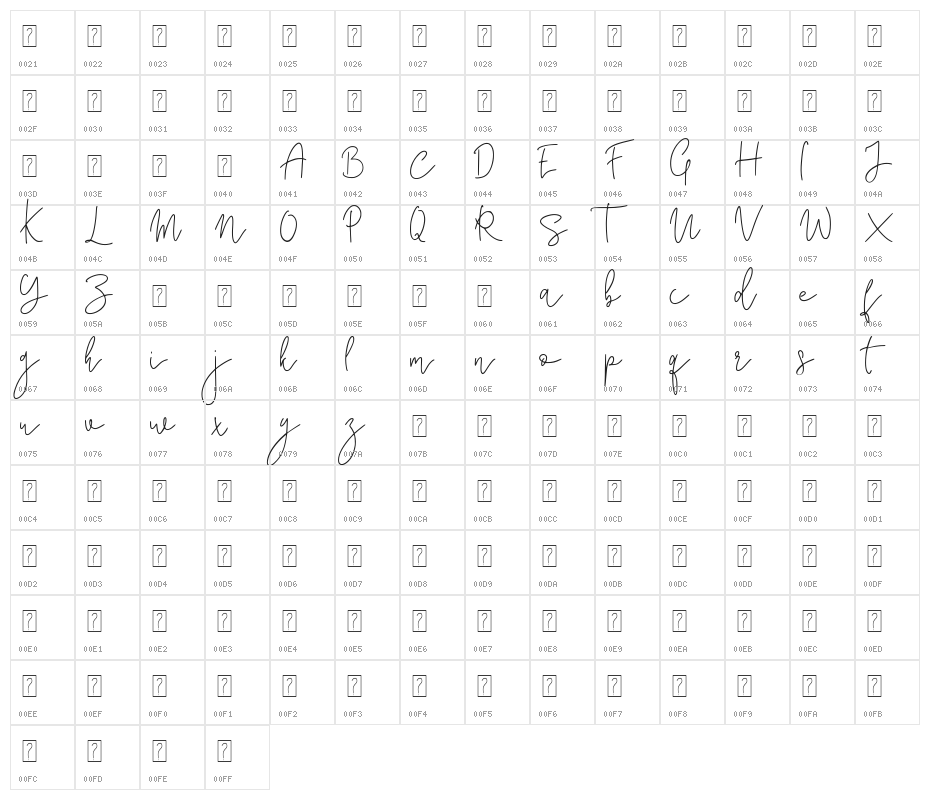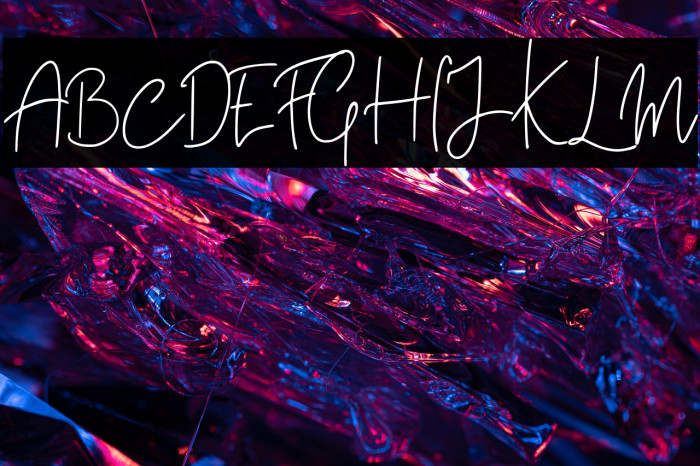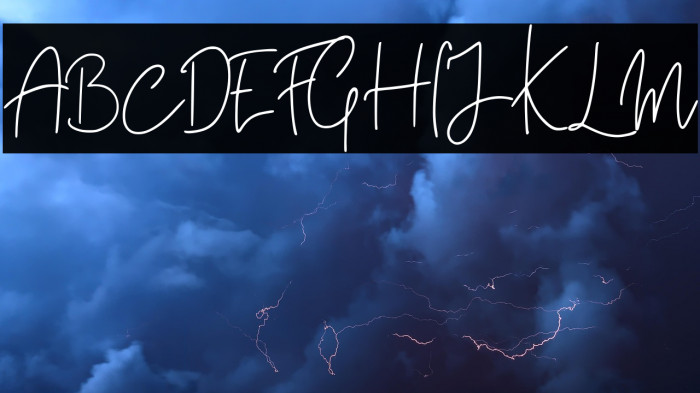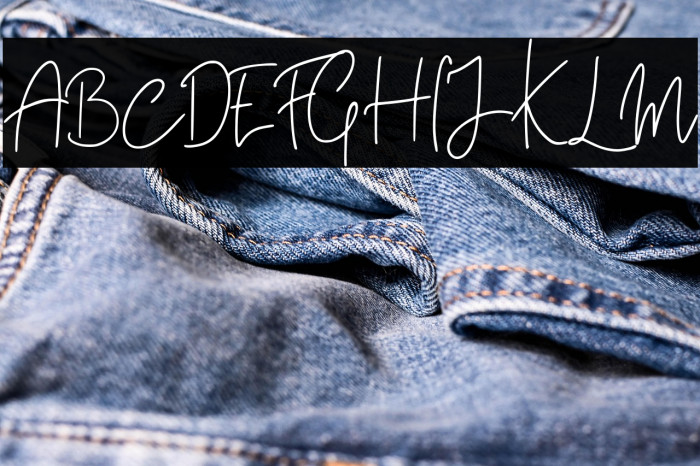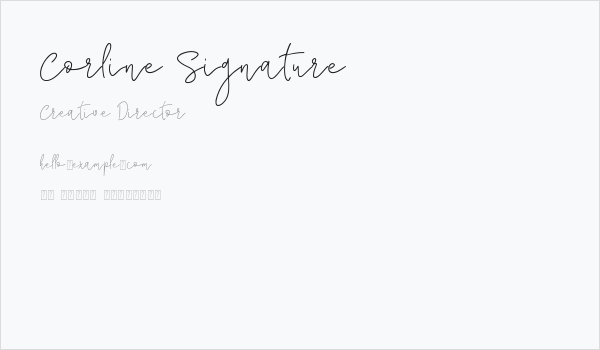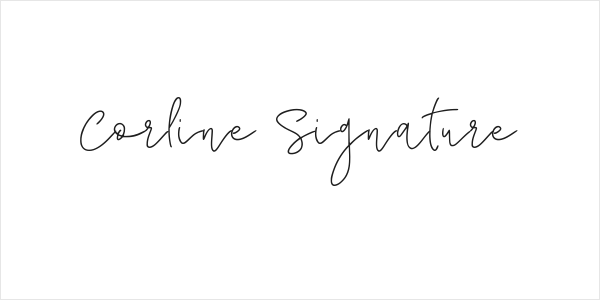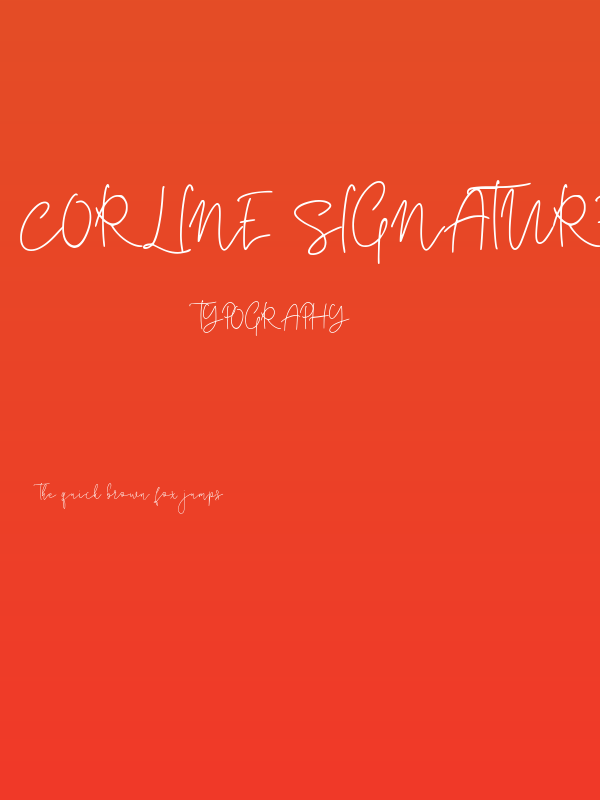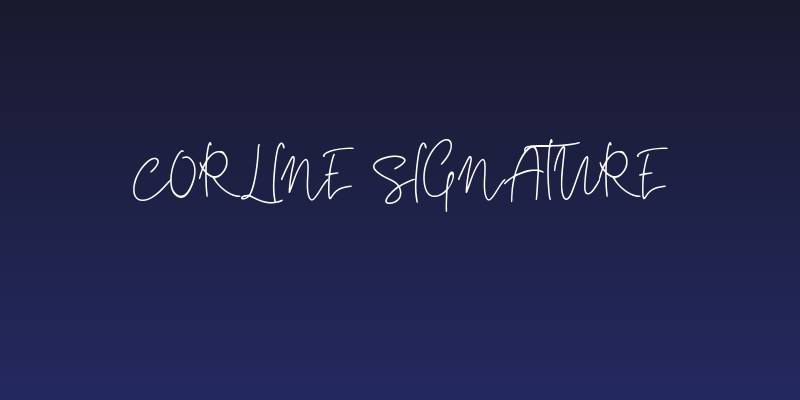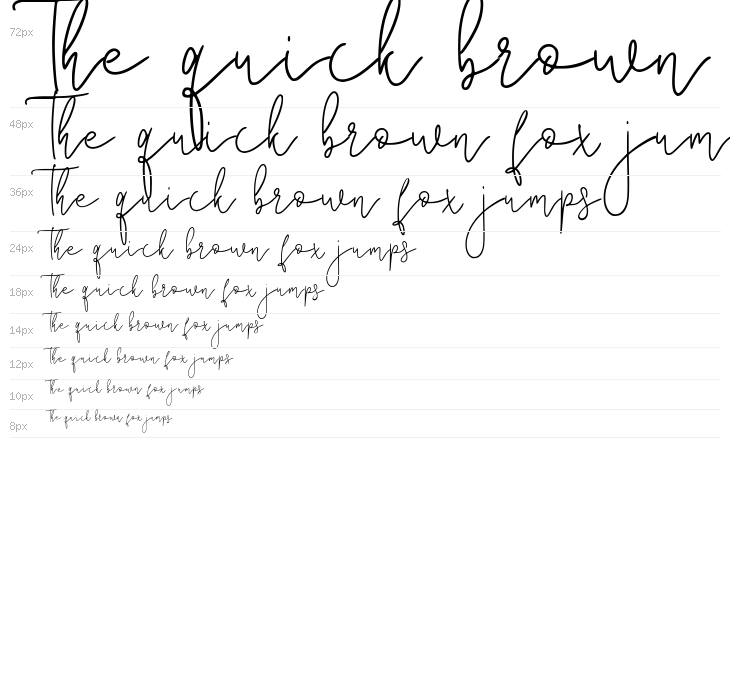
Corline Signature Font
Corline Signature Description
This font features a flowing, cursive style that mimics the fluidity of a handwritten signature. The letters are connected with smooth, elegant strokes, giving it a personal and sophisticated appearance. The uppercase letters are tall and slightly elongated, while the lowercase letters maintain a consistent flow with subtle variations in height and width. The overall design is airy and light, with a delicate touch that enhances its elegance. This font is ideal for projects that require a personal touch, such as invitations, greeting cards, or branding materials.
| Overall Style | Elegant, Handwritten |
| Proposed Projects | Ideal for wedding invitations, personal branding, greeting cards, and elegant stationery. |